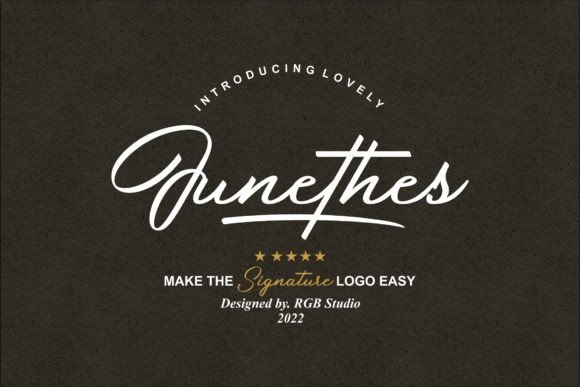
Introducing Junethes, a captivating script font that will transform your creative projects into cinematic masterpieces. This meticulously handcrafted font is a visual feast, featuring intricate details and smooth, flowing lines that capture the essence of classic movie posters and vintage Hollywood glamour.
With its elegant curves and dynamic character, Junethes effortlessly elevates your designs, adding a touch of sophistication and timeless charm. Its versatility allows you to create stunning visuals that will leave an unforgettable impression, whether you're crafting logos, posters, invitations, or any design that demands attention.
Unleash your creativity and immerse yourself in the world of cinematic storytelling with Junethes. Let this font become your muse, inspiring you to create designs that transport viewers to another era, evoke powerful emotions, and leave a lasting impact. From grand adventures to heartwarming dramas, Junethes will be your trusted companion, guiding you to create designs that truly shine.